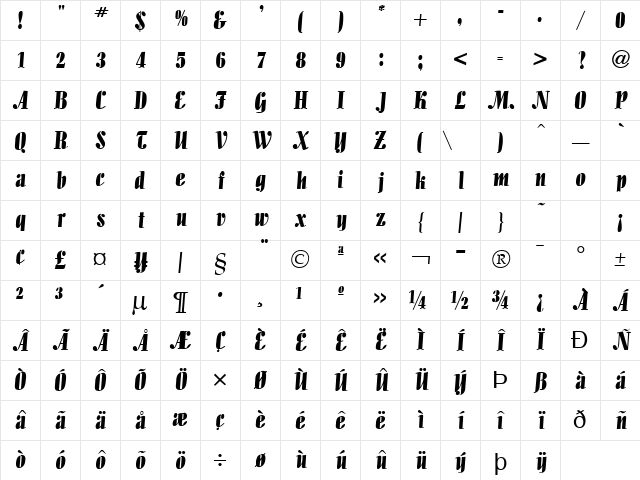
Aloe Normal
Aloe Family
Complete Aloe Normal glyph index. Displaying only characters natively supported by Aloe Normal font.
Design Context for Aloe
Aloe is a composed and adaptable typeface that performs quietly and consistently across a wide range of design contexts.